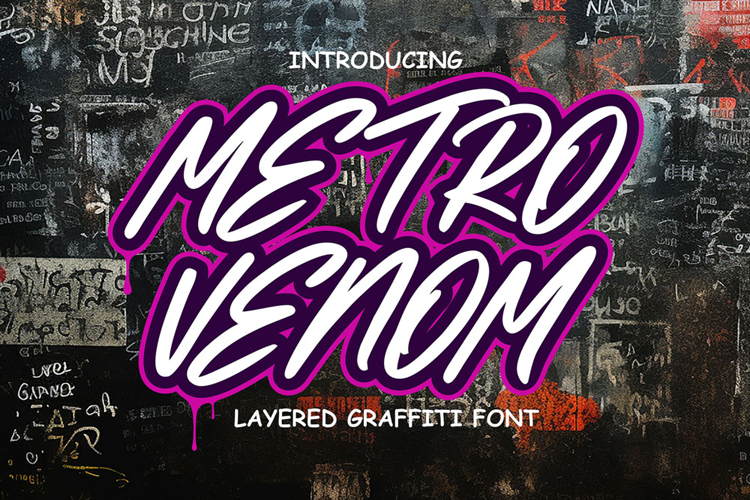
Metro Venom - Outlined Brush Graffiti Font
Metro Venom is an outlined graffiti brush font that captures the raw energy of street lettering and the expressive rhythm of urban brush strokes. Designed to look bold, fast, and aggressively stylish, Metro Venom brings the aesthetic of spray-painted outlines and hand-brushed graffiti into a clean, digital format that’s perfect for modern designers who want loud, rebellious typography.
Every letter in Metro Venom carries the spirit of street culture — sharp edges, fast curves, uneven pressure, and lively brush textures that feel intensely hand-drawn. The outlined style gives the font a unique dual-layer look: bold and hollow at the same time, making every word stand out with dramatic contrast. It’s the kind of font that screams movement, power, and attitude, ideal for projects that need an authentic underground identity.
Metro Venom works beautifully for streetwear brands, graffiti posters, album artwork, festival graphics, sports visuals, and social media designs that aim for high-impact visuals. The wide brush strokes create a strong presence from afar, while the outlined structure adds depth and dimension that gives your typography a modern edge.
The font includes Uppercase characters, numbers, and punctuation, making it easy to use across various layouts. Its multilingual support expands your creative possibilities, allowing designers around the world to implement the same gritty urban energy into different languages. Metro Venom also features stylistic alternates, letting you explore multiple versions of certain characters to get a wilder or more dynamic graffiti feel.
Why Designers Love Metro Venom doesn’t just imitate graffiti — it embodies it. The brush strokes feel natural and energetic, with roughness intentionally preserved to maintain the authenticity of hand-lettered tagging. The outlined style gives an extra layer of uniqueness, making the font recognizable, memorable, and incredibly versatile for bold display use.
This font is built for designers who want more than a simple graffiti style — they want a street-born identity, a strong movement, and a visual punch that stands out in digital and printed designs. Metro Venom excels because it is expressive, charismatic, and crafted to dominate the layout without sacrificing legibility.
Whether you’re designing street apparel, extreme sports branding, hip-hop graphics, or modern grunge visuals, Metro Venom adds explosive character and unmistakable attitude.
Features:- Uppercase
- Numbers & Punctuation
- Stylistic Alternates
- Outlined Brush Graffiti Style
- High-impact display structure